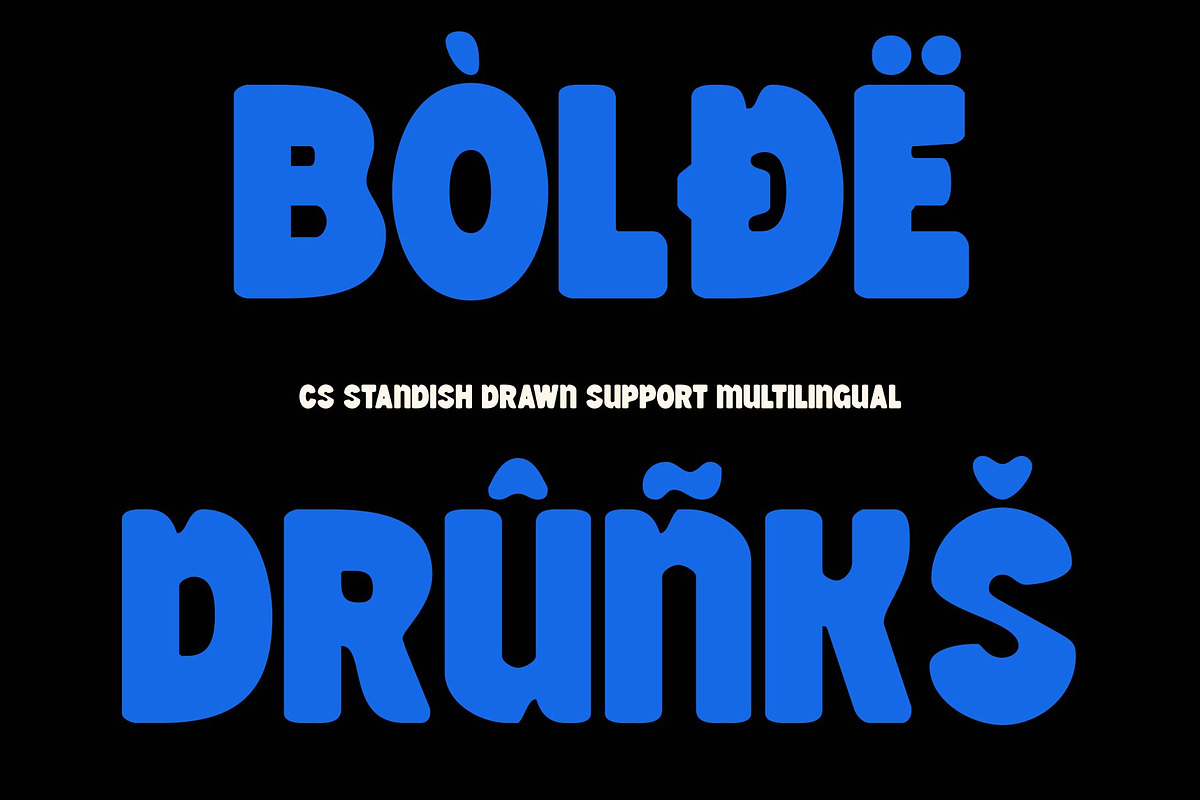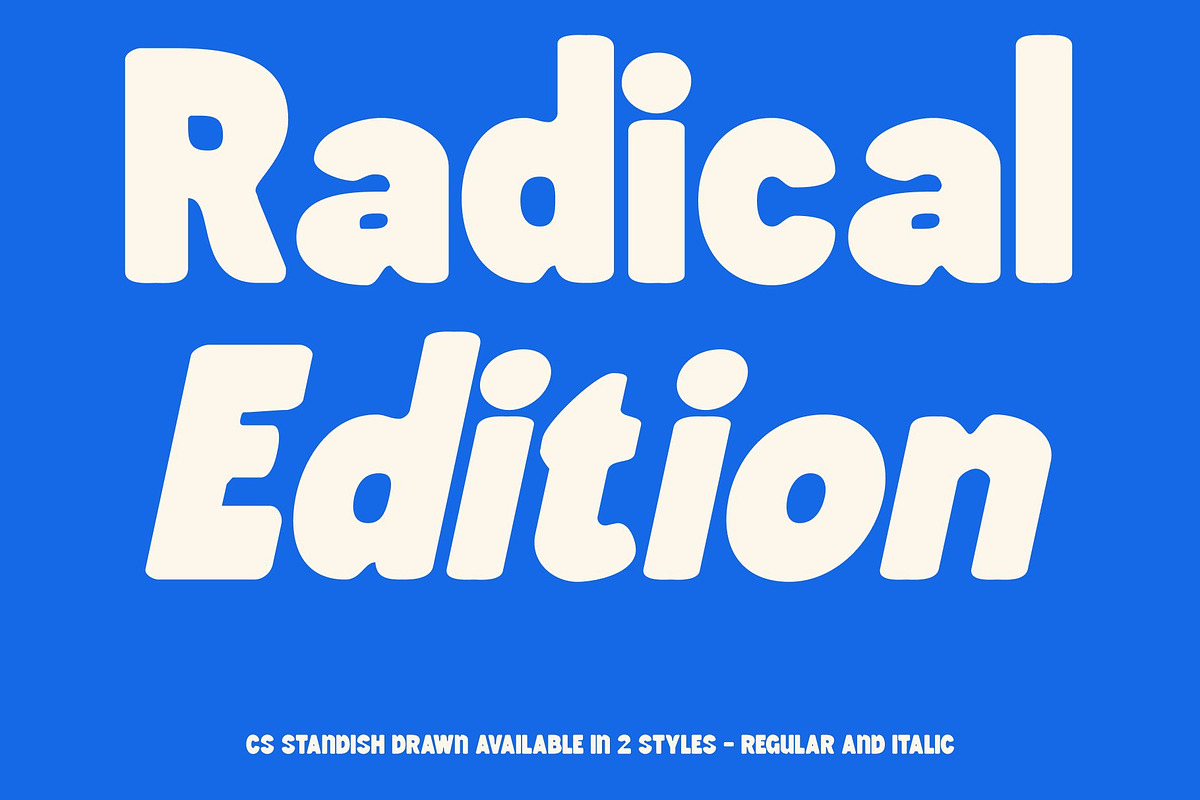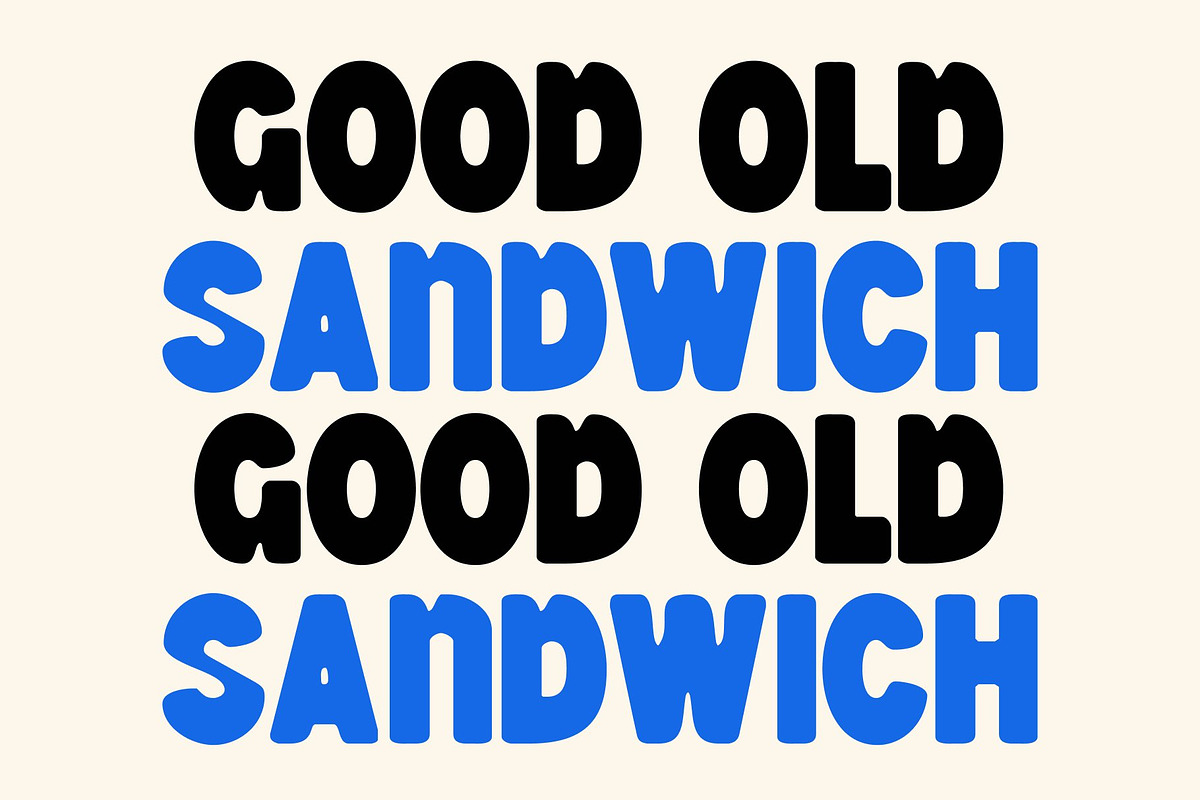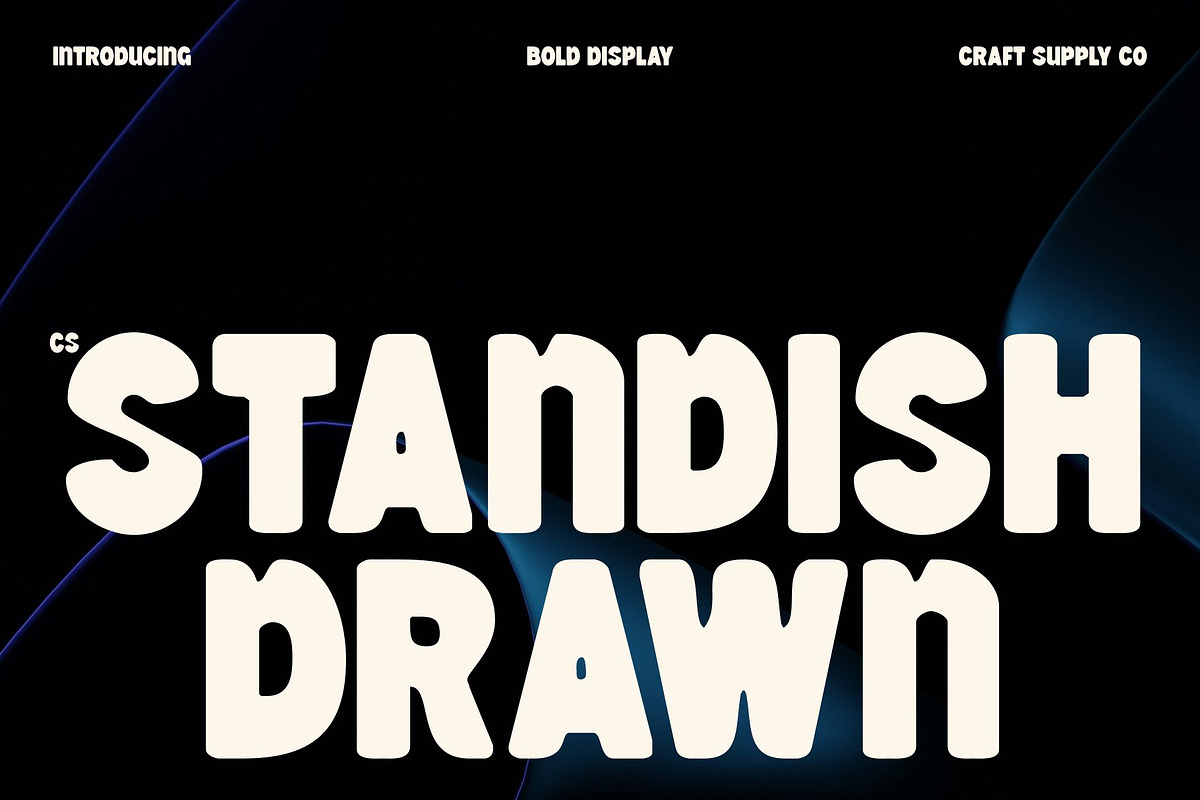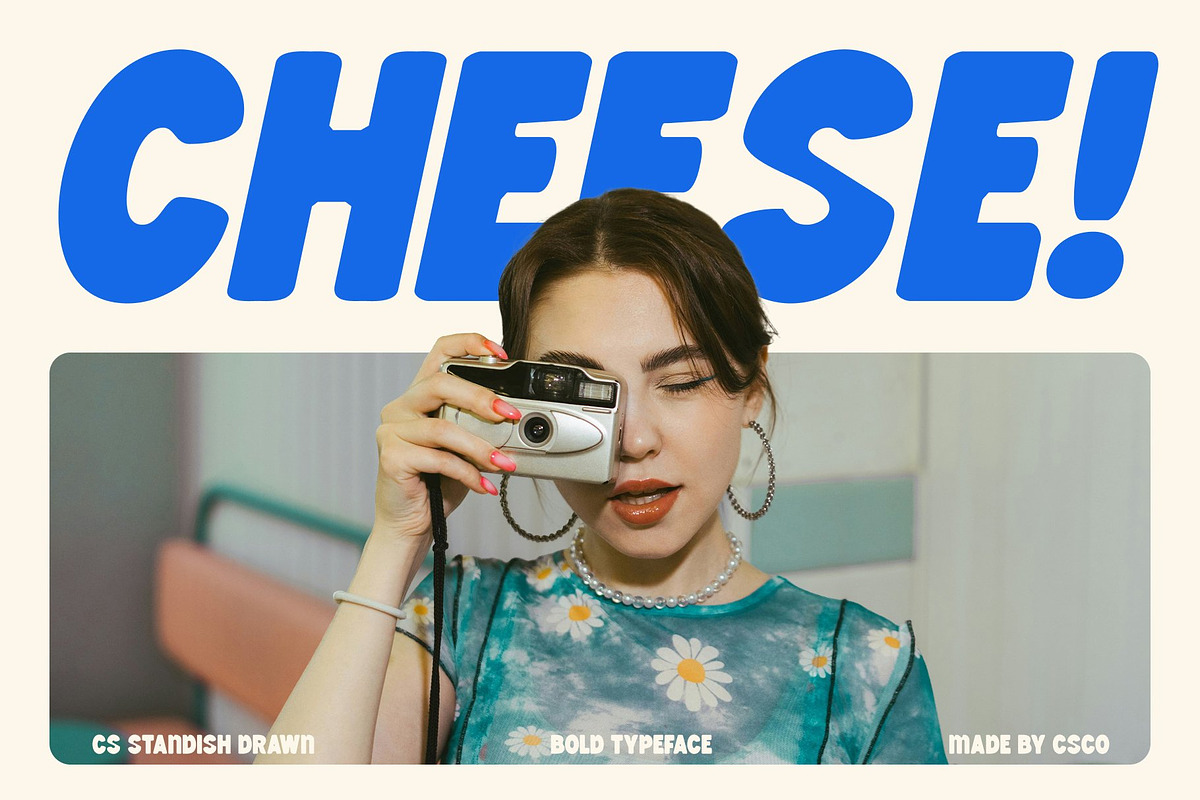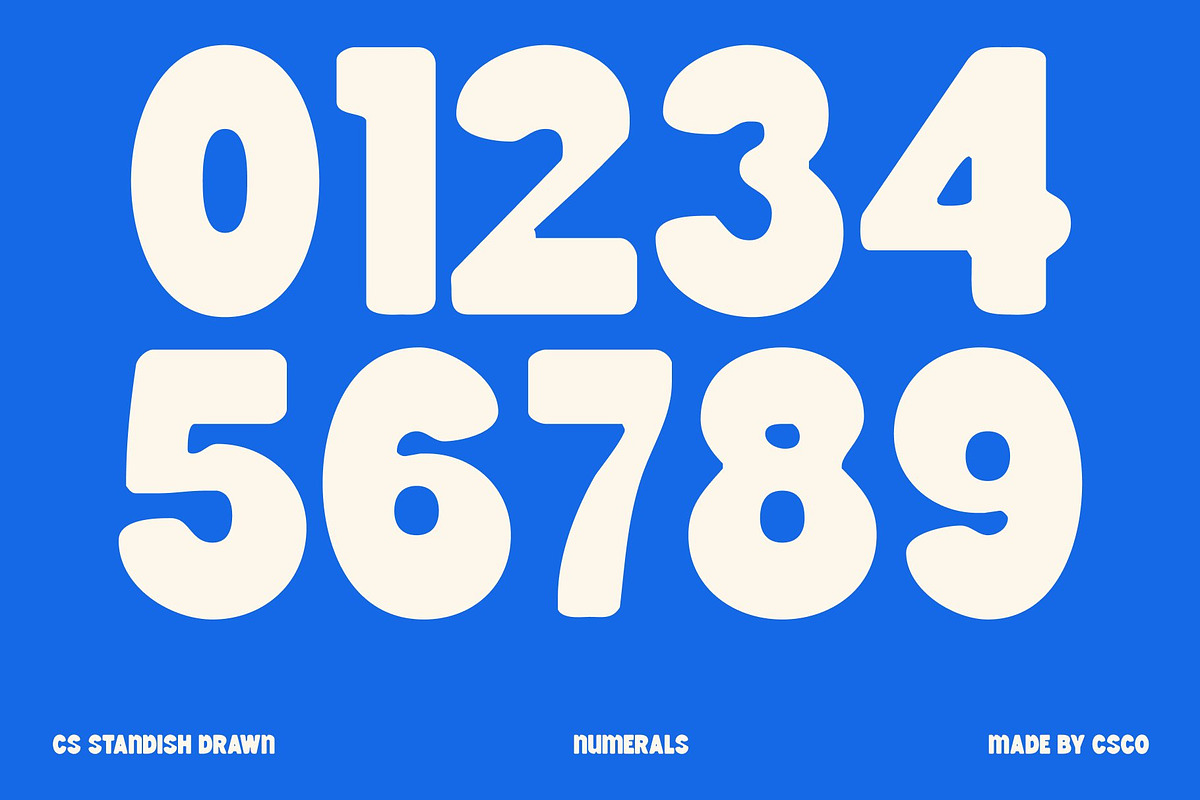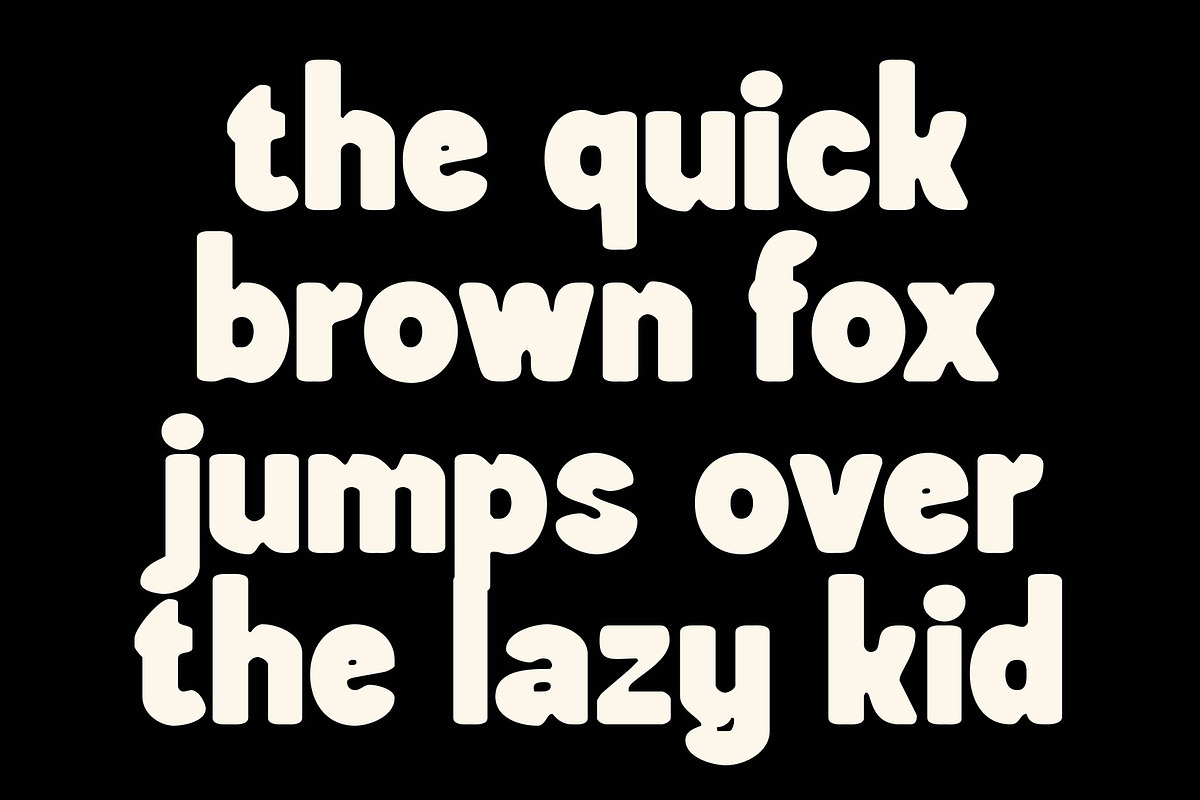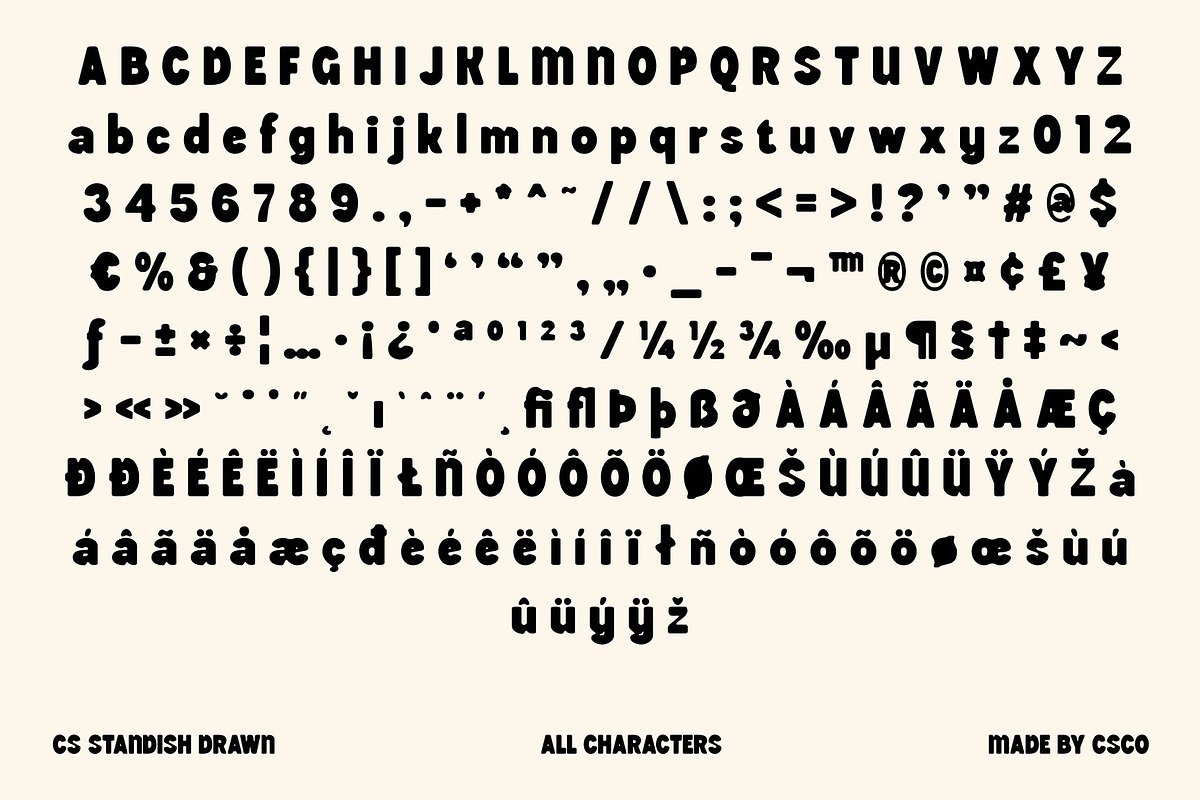
CS Standish Drawn
CS Standish Drawn – Modern Sans Serif with Grotesque Edge and Hand-Drawn Character
Bold Sans Serif with Contemporary Confidence This is a modern sans serif font defined by bold, clean, and structured letterforms. Its contemporary construction delivers clarity and confidence, while the drawn effect adds subtle organic texture. This combination creates a typeface that feels strong and precise, yet approachable and expressive.
Grotesque Influence with Human Touch Inspired by classic grotesque typography, this font features understated humanist details that soften its geometric foundation. The hand-drawn nuances introduce slight variations in stroke and form, giving the font warmth and individuality without compromising its modern efficiency.
Clean Structure with Strong Visual Impact Even strokes and consistent spacing ensure excellent readability and visual balance. The drawn details prevent the design from feeling rigid or mechanical, allowing the font to communicate clearly while maintaining a refined, professional tone with character.
Versatile for Branding and Modern Creative Projects Perfect for logos, posters, branding systems, editorial layouts, and digital design, this font adapts effortlessly across creative directions. Its blend of modern simplicity, grotesque influence, and handcrafted detail makes it a reliable and distinctive choice for designers seeking bold clarity with personality.
- CS Standish Drawn Regular
- CS Standish Drawn Italic